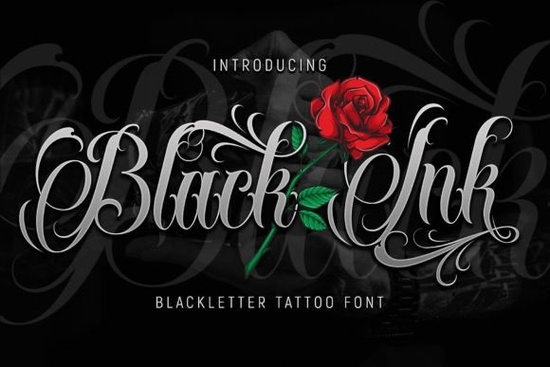
Looking for a bold blackletter font that works across modern design projects? Black Ink Font is a contemporary take on traditional gothic lettering, designed to feel sharp and readable while keeping that classic dark aesthetic. Whether you're working on logos, t-shirt designs, posters, or brand identity pieces, this typeface brings a strong visual presence without looking outdated.
What Makes Black Ink Different from Traditional Blackletter Fonts?
Most blackletter fonts lean heavily into medieval calligraphy styles, which can feel stiff or hard to read at smaller sizes. Black Ink takes a different approach. It keeps the bold, angular strokes of gothic lettering but cleans up the letterforms so they work well in modern layouts. You get the dark, edgy feel of a Nightmare Gothic Font style typeface without sacrificing legibility.
This makes it a solid choice for:
- Logo design especially for brands with a bold, rebellious, or vintage identity
- T-shirt and apparel graphics the thick strokes hold up well in screen printing and DTG
- Posters and flyers great for event promotions, music covers, and street art–inspired layouts
- Social media graphics attention-grabbing headlines that stand out in a feed
- Brand identity kits business cards, packaging, and signage with a dark theme
Which Design Projects Work Best with a Gothic Tattoo Font?
Blackletter tattoo fonts like Black Ink tend to shine in projects where you want to make a strong first impression. Think about designs that need to feel powerful, mysterious, or a little rebellious.
Print-on-demand sellers often reach for gothic typefaces when creating designs for:
- Biker and motorcycle club merchandise
- Heavy metal and punk band merch
- Gym and fitness apparel with a tough, no-nonsense vibe
- Halloween and seasonal event products
- Streetwear and urban fashion brands
The key is pairing the font with the right context. A blackletter typeface on a yoga studio flyer might feel off, but on a tattoo shop poster or a craft brewery label, it fits perfectly.
How Does Black Ink Compare to Other Blackletter Fonts?
If you're browsing blackletter fonts and wondering which one fits your project, here's a quick comparison.
This contemporary blackletter option is the most versatile on the list. It's clean enough for logos and branding but still carries that gothic edge. If you need something with a heavier, more dramatic presence, a darker horror-inspired style works well for Halloween designs and dark-themed merchandise.
For projects that need a handwritten feel, Blistao Font offers a script-based blackletter style with more flow and movement. And if you want something with sharp, architectural angles, Arkhaven Font delivers a structured gothic look that feels almost medieval.
Each one has its strengths, but Black Ink sits right in the middle bold enough to grab attention, clean enough to stay readable.
Tips for Pairing Black Ink with Other Fonts
A blackletter font works best when you don't use it for everything. Set your headlines in Black Ink and pair it with a clean sans-serif for body text. Some good combinations:
- Black Ink + a simple geometric sans-serif for modern, high-contrast layouts
- Black Ink + a vintage serif for classic tattoo shop or barbershop branding
- Black Ink + a handwritten script for layered, textured designs with depth
Avoid pairing it with another decorative font too many competing styles will make your design feel cluttered and hard to read.
Is Black Ink Right for Your Next Project?
If you design for clients or sell products online, having a reliable blackletter font in your toolkit saves time. You won't need to hunt for the right typeface every time a project calls for something bold and gothic.
Here's a quick checklist to see if Black Ink fits your needs:
- You need a Black Ink Font that reads well at both large and small sizes
- Your project calls for a dark, edgy, or vintage aesthetic
- You want something more modern than a traditional Fraktur typeface